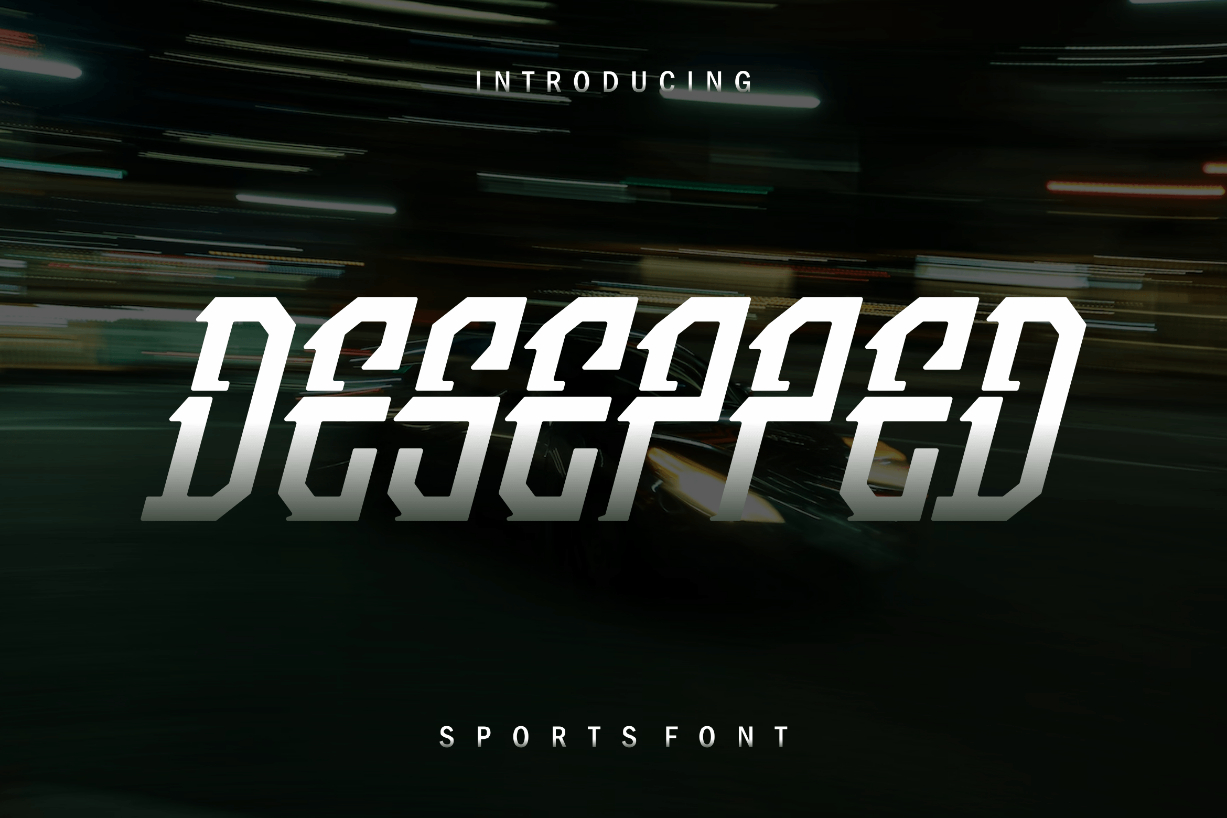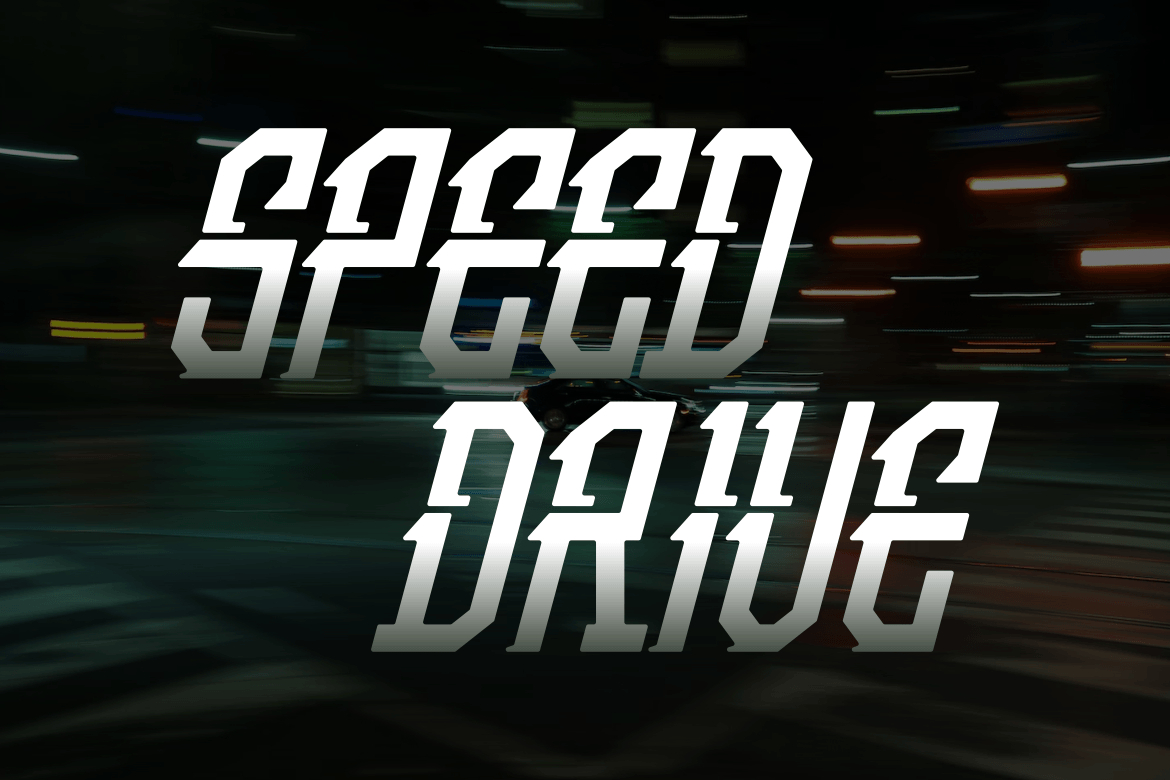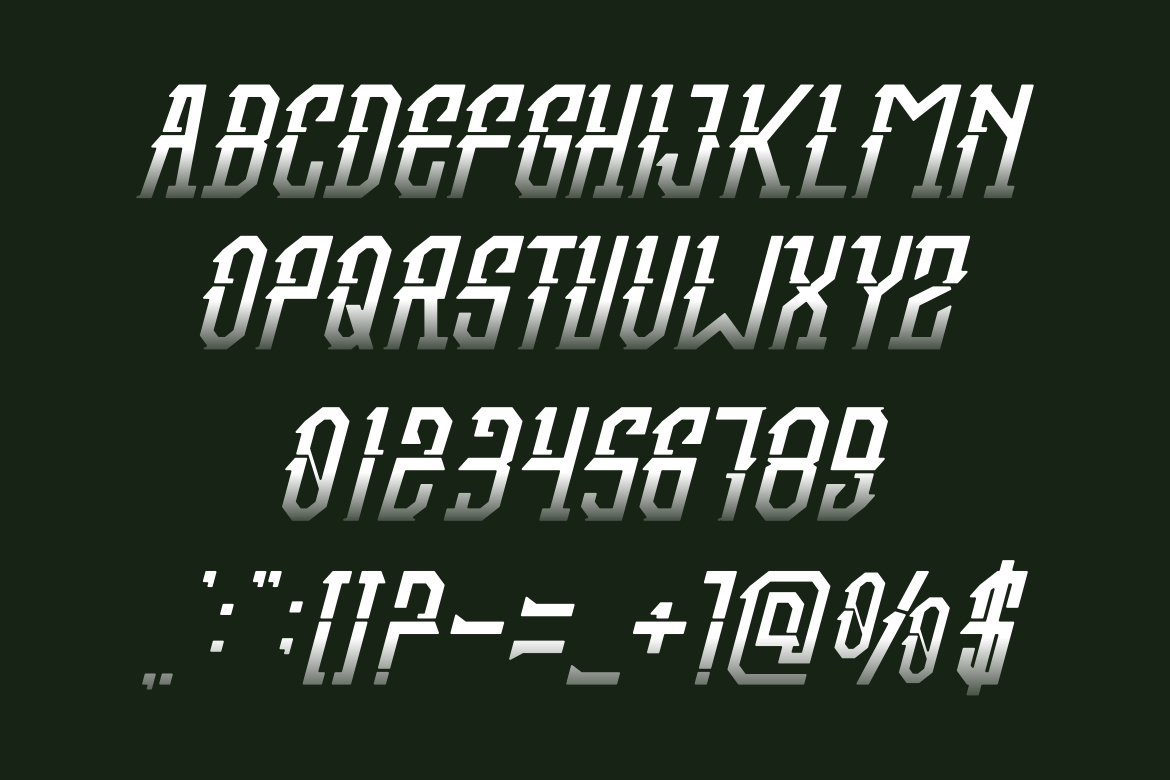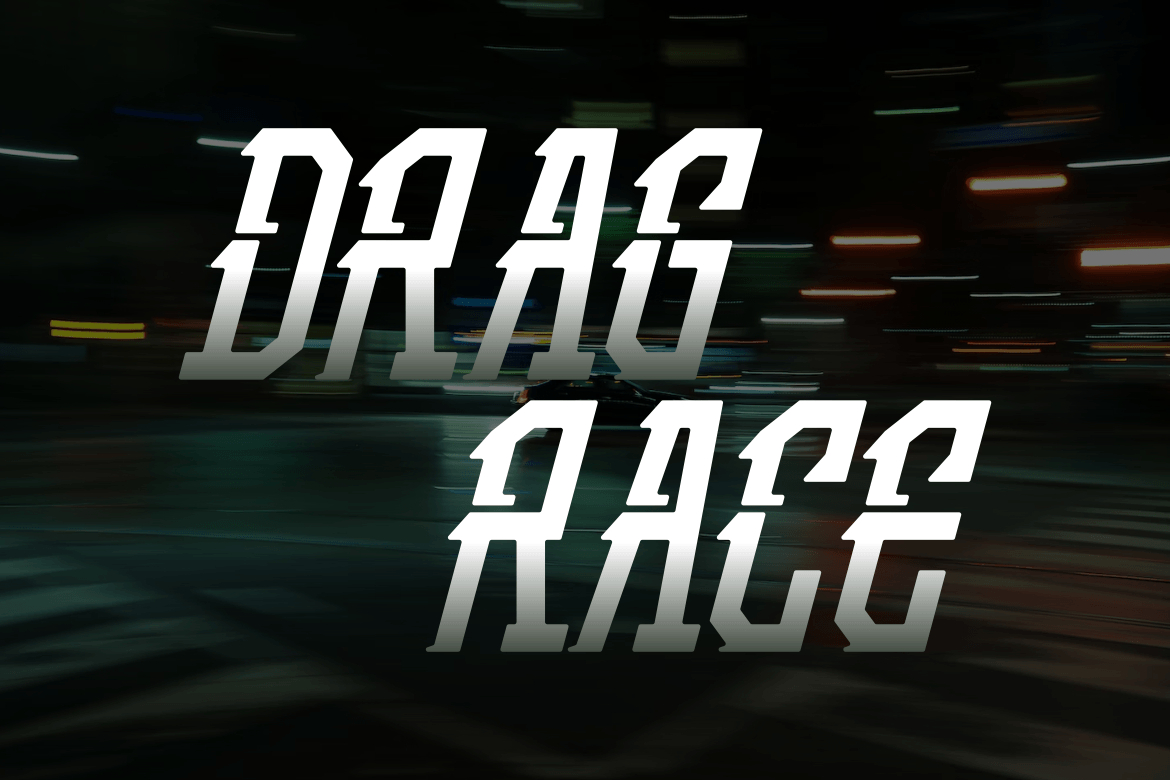
About Desepped Font
Desepped is a unique blackletter font that feels beautiful classy, elegant, and modern. This font is perfectly suited for a wide variety of projects, such as signature, stationery, logo, wedding, typography quotes, magazine or book cover, website header, clothing, branding, packaging design, and more.